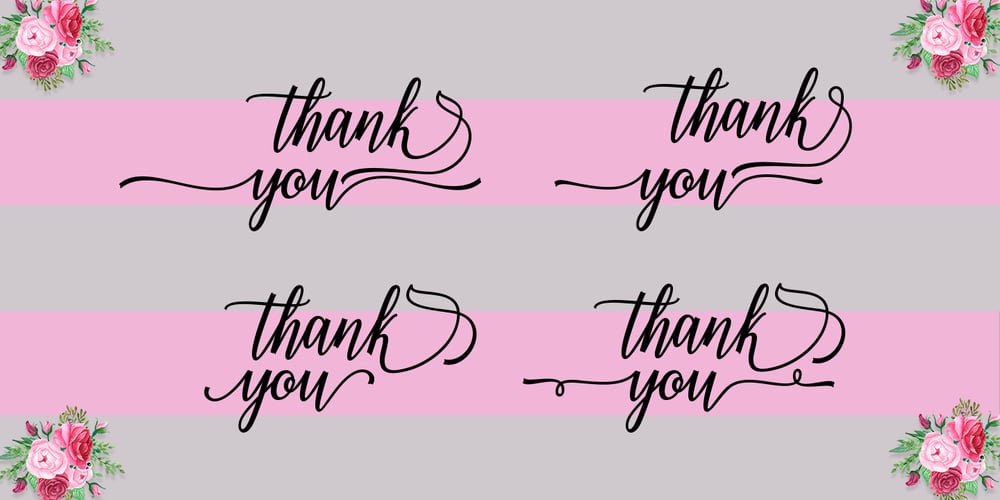
Delthami Script Font Family was designed by Syahputra and published by Bexxtype. Delthami Script contains 1 styles and family package options. Delthami Script a new fresh & modern script with a handmade calligraphy style, decorative characters and a dancing baseline. So beautiful on invitation like greeting cards, branding materials, business cards, quotes, posters, and more. Delthami Script come with 704 glyphs. The alternative characters were divided into several OpenType features such as Swash, Stylistic Sets, Stylistic Alternates, Contextual Alternates. The OpenType features can be accessed by using OpenType savvy programs such as Adobe Illustrator, Adobe InDesign, Adobe Photoshop Corel Draw X version, And Microsoft Word. And this Font has given PUA unicode (specially coded fonts). so that all the alternate characters can easily be accessed in full by a craftsman or designer. If you don’t have a program that supports OpenType features such as Adobe Illustrator and CorelDraw X Versions, you can access all the alternate glyphs using Font Book (Mac) or Character Map Windows). If you have any question, don’t hesitate to contact me by email bexxtype@gmail.com Thanks and happy designing 🙂 Thank You for purchase!